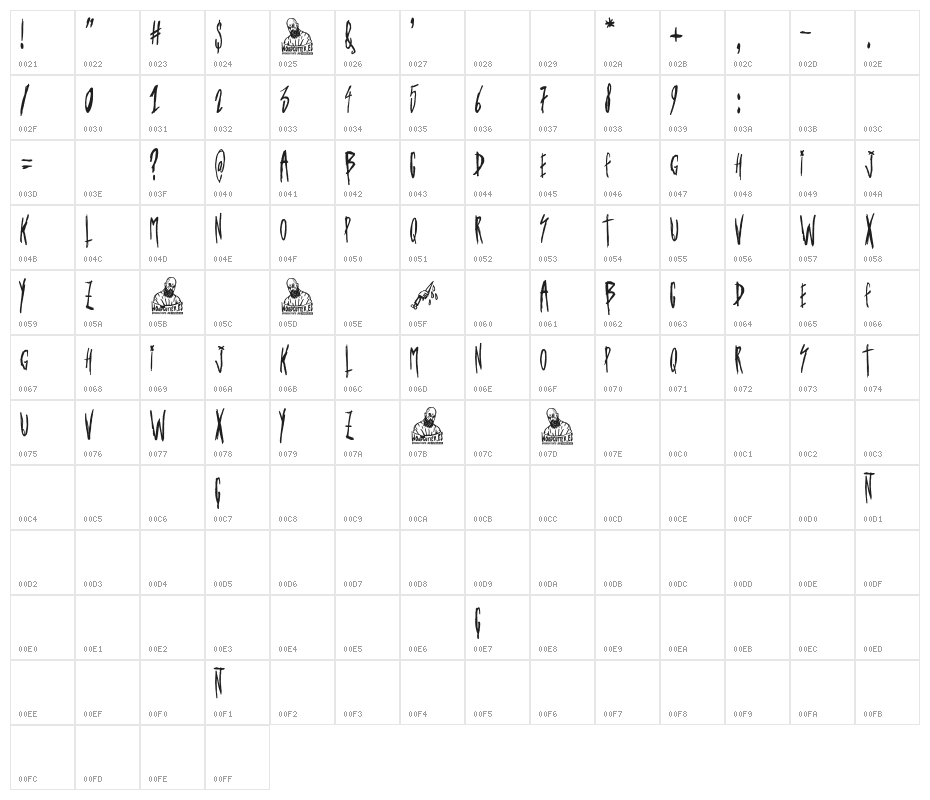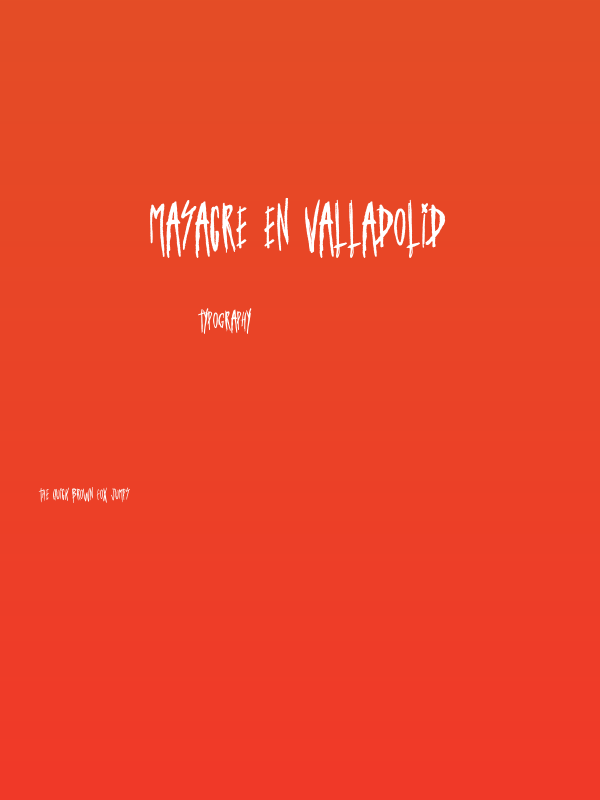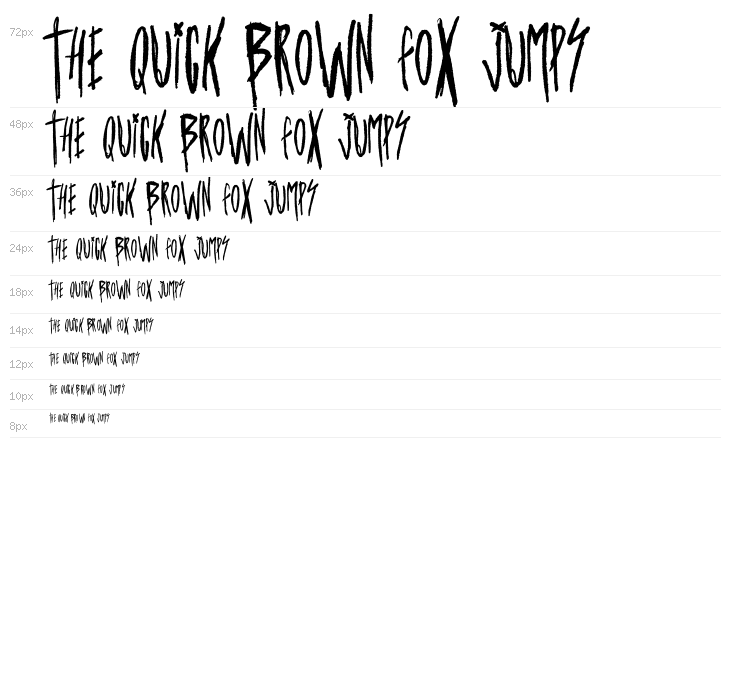
Masacre en Valladolid Font
Masacre en Valladolid Description
A highly expressive, hand-drawn font with tall, narrow letters and uneven, jagged strokes, giving it a raw, chaotic appearance. The characters have irregular heights and widths, with exaggerated ascenders and descenders, and a rough, brush-like texture.
| Overall Style | Decorative, Grunge, Expressive |
| Use Case | Headlines, Posters, Logos, Display text |
| Proposed Projects | Horror posters, punk album covers, zines, Halloween invitations, edgy branding. |